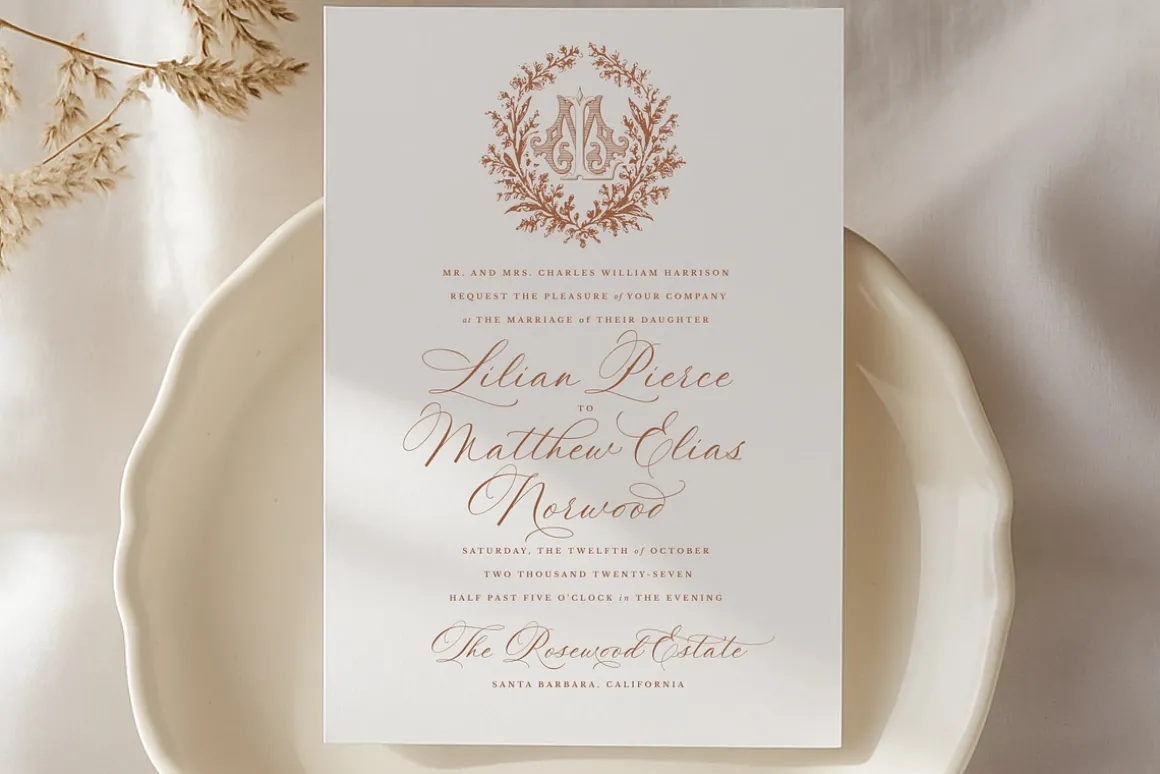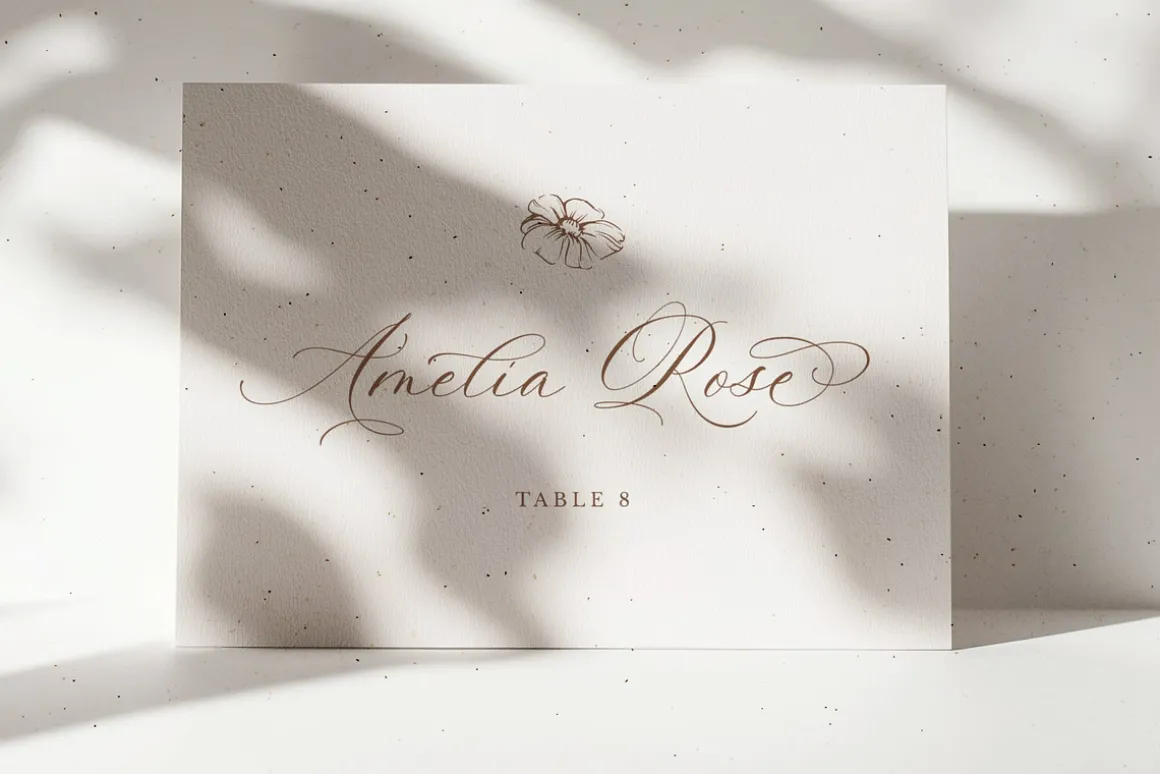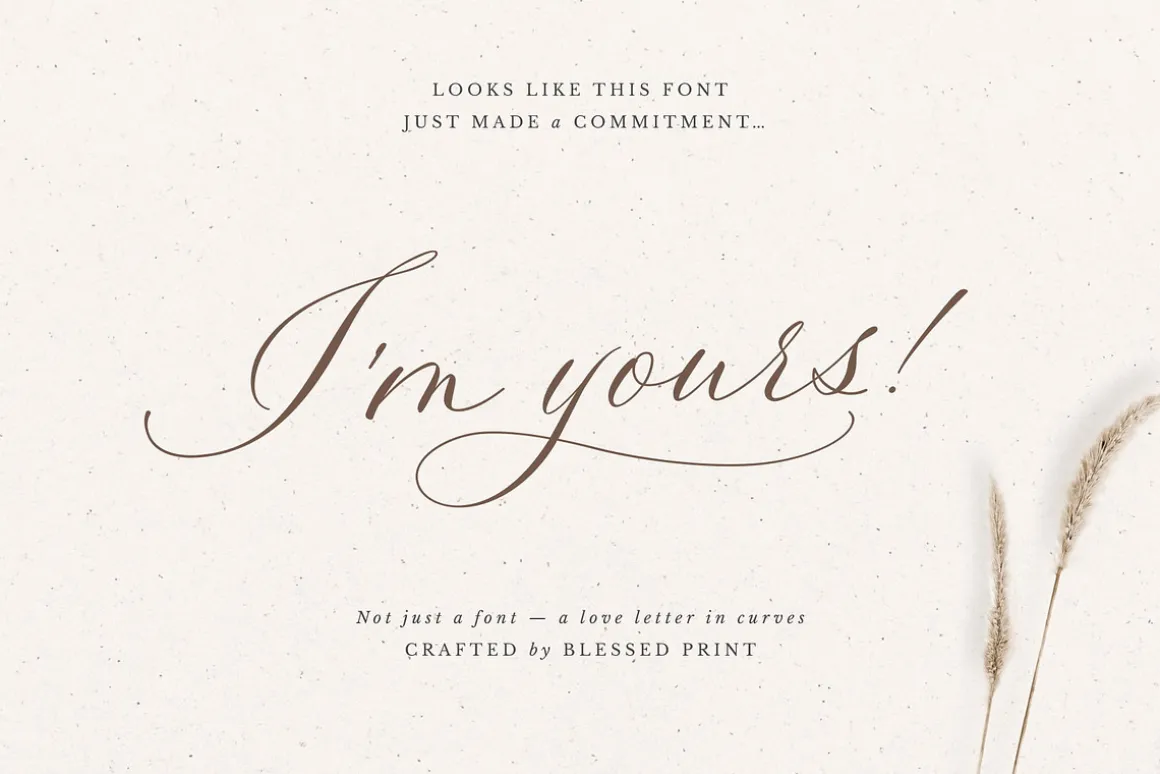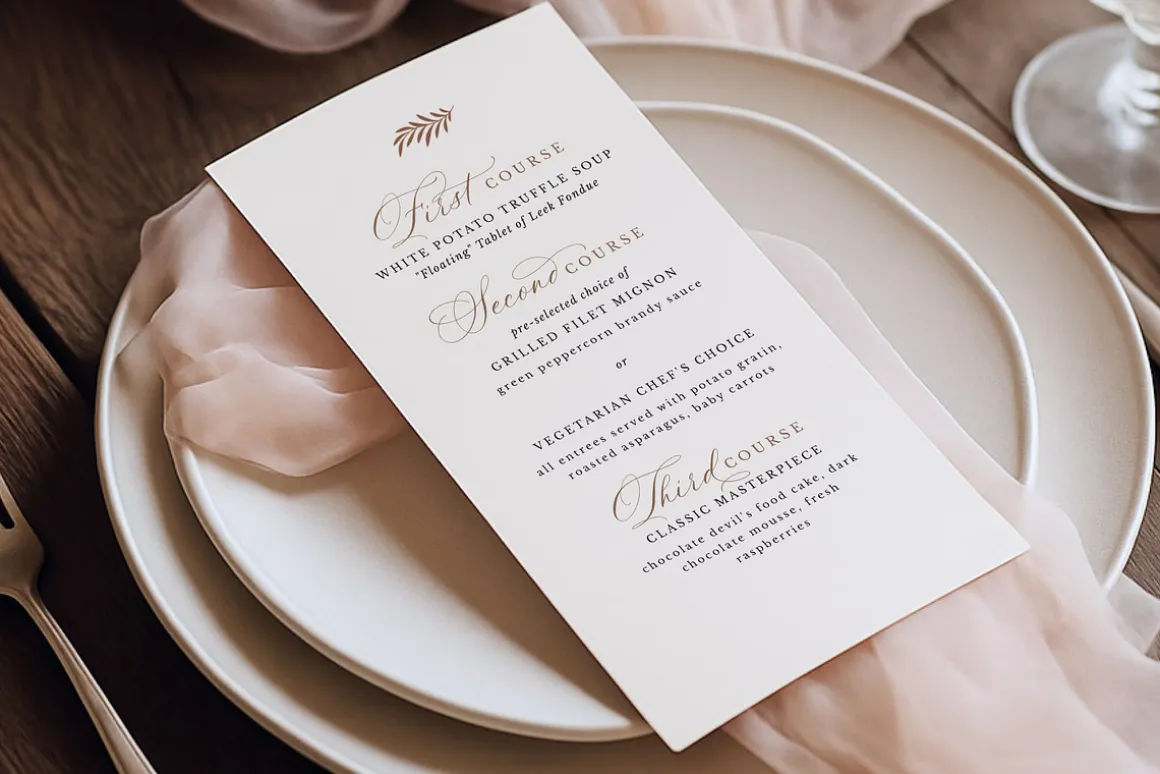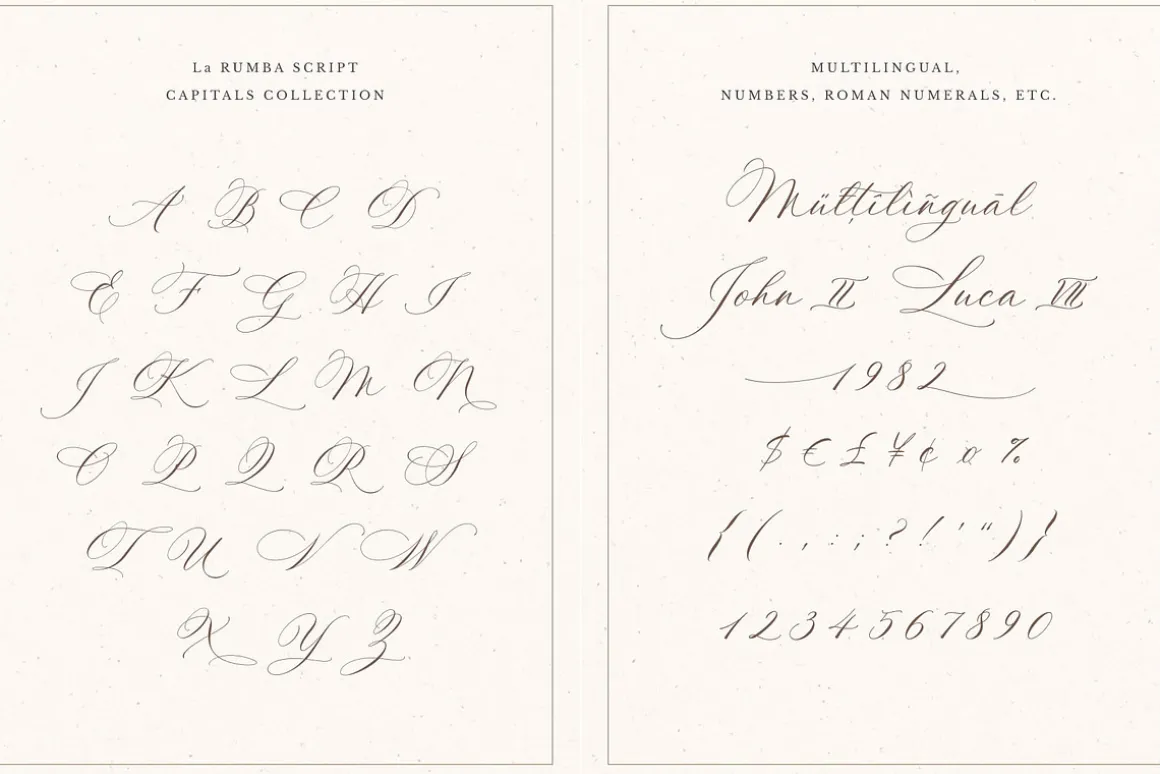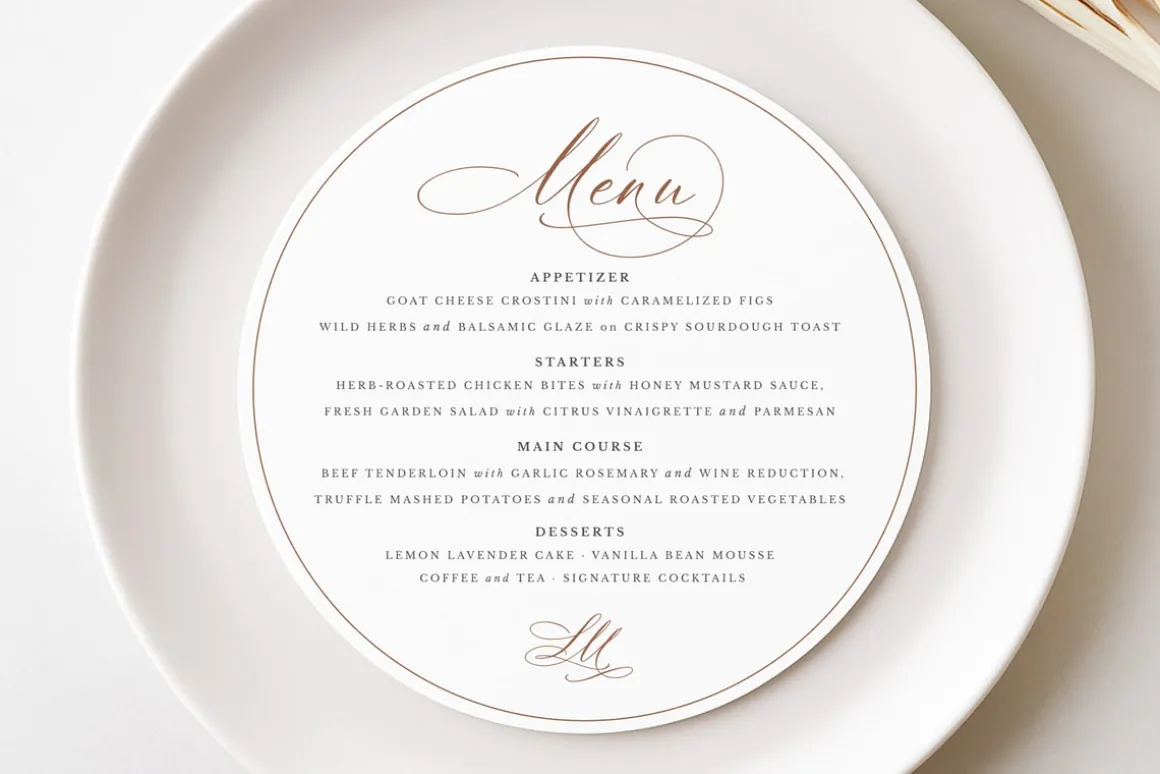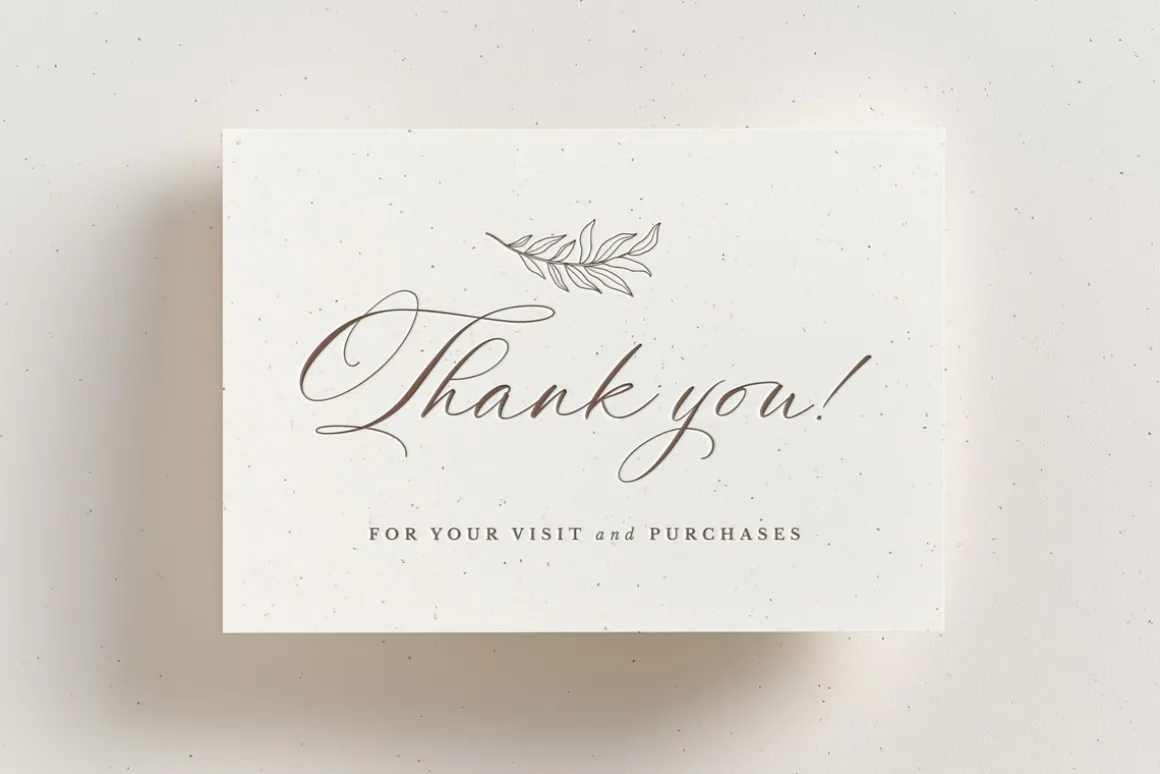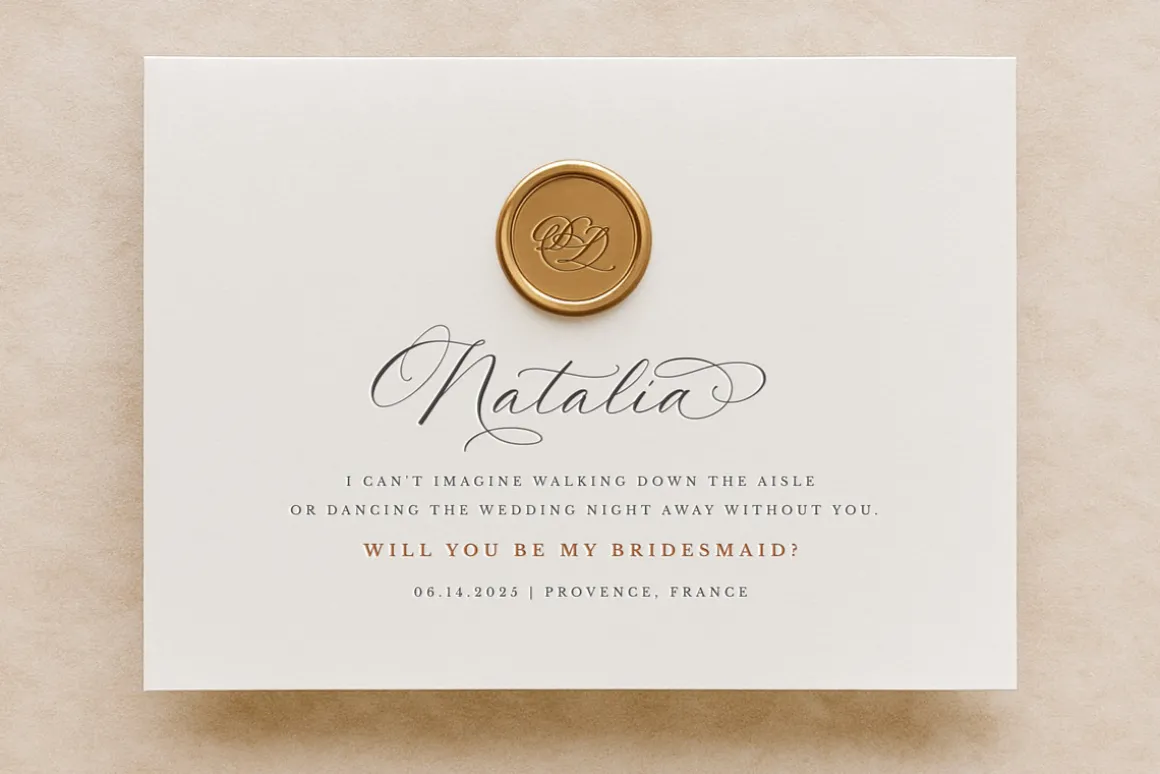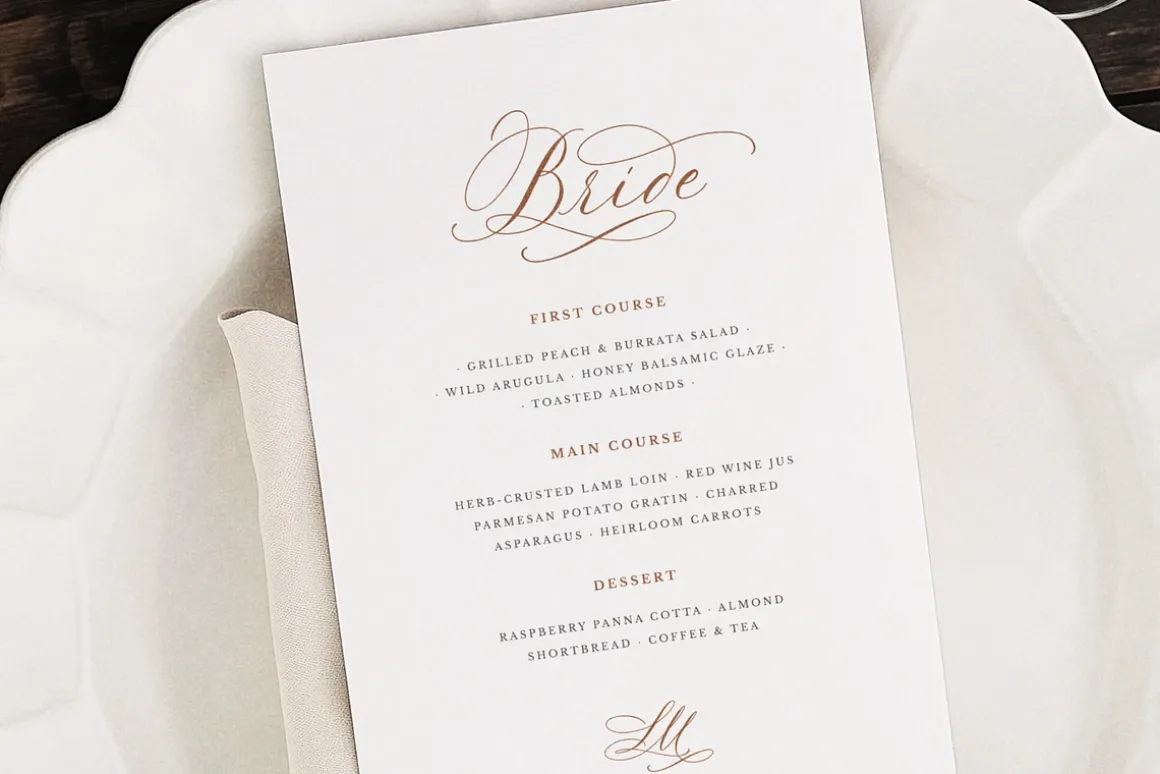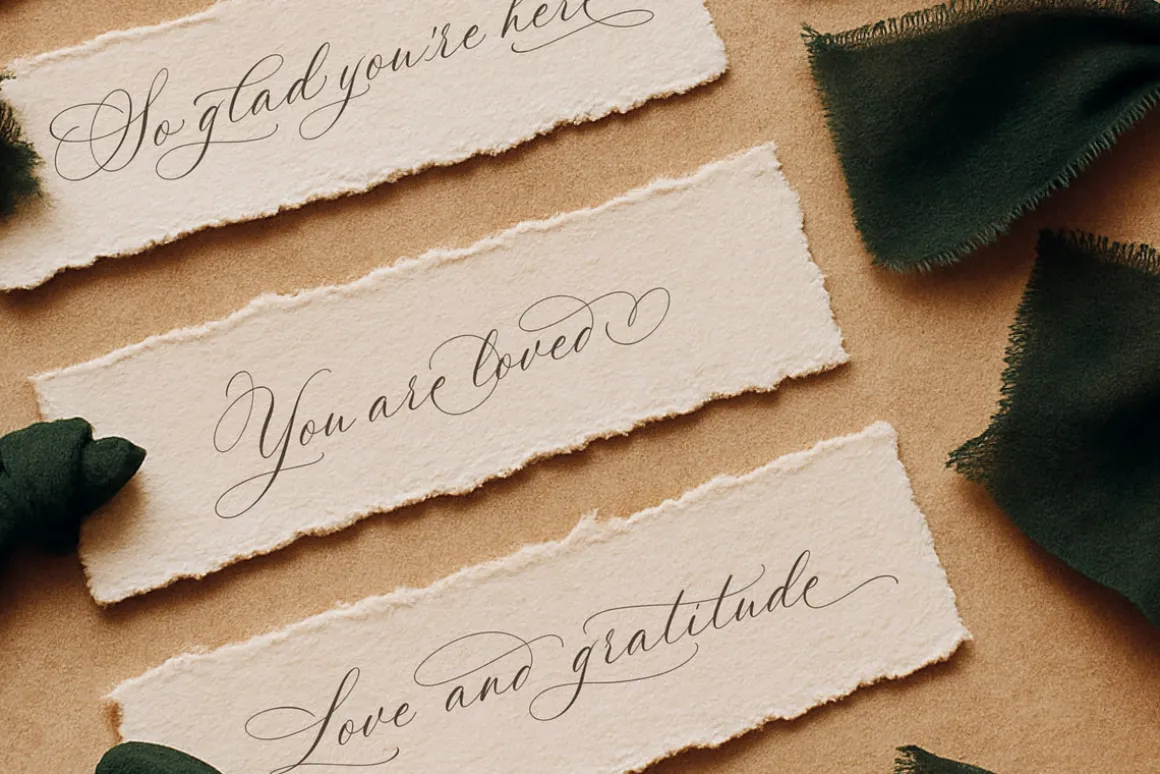
Introducing La Rumba Font! A romantic handwritten script with a modern calligraphy soul. La Rumba was designed to bring elegance, charm, and expressive freedom to your lettering. With up to 20 alternates for each lowercase and 6–10 variations for every uppercase letter, this font lets you customize every word with graceful rhythm and movement.
If you loved Mozart or Juliette script, La Rumba will feel like a natural next step.
- Activate ligatures and type a number after a letter (like A1, a2) to use alternate glyphs
- Turn on contextual alternates to automatically stylize the first and last lowercase letters of each word
- Type a plus sign (+) after some letters to access additional stylistic options
- Start swash: [1, [2 ; End swash: 1], 2]
- Over 750 alternates, ligatures, and swashes (Total: 1,120 glyphs)
- Roman Numerals
Multilingual Support:Includes accents and characters for: Czech, Danish, Dutch, English, French, German, Italian, Latvian, Lithuanian, Norwegian, Polish, Portuguese, Romanian, Slovak, Spanish, Swedish, Turkish, and more.